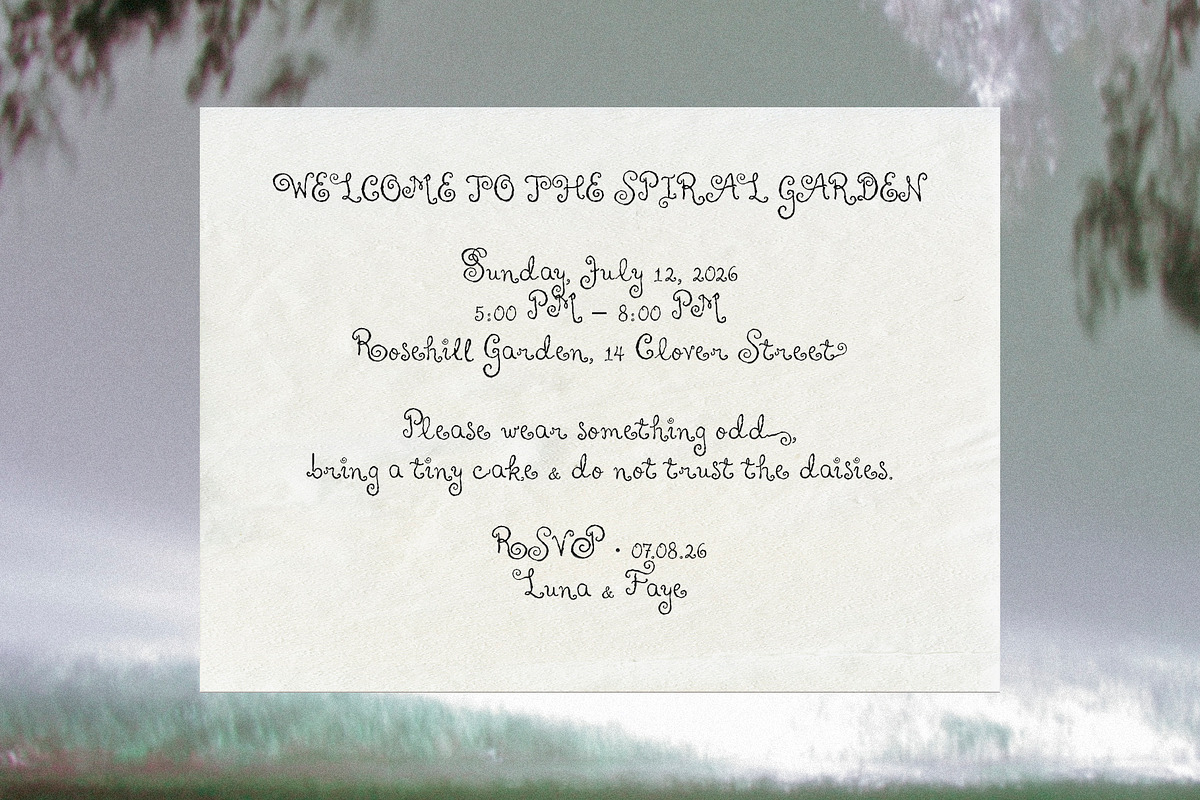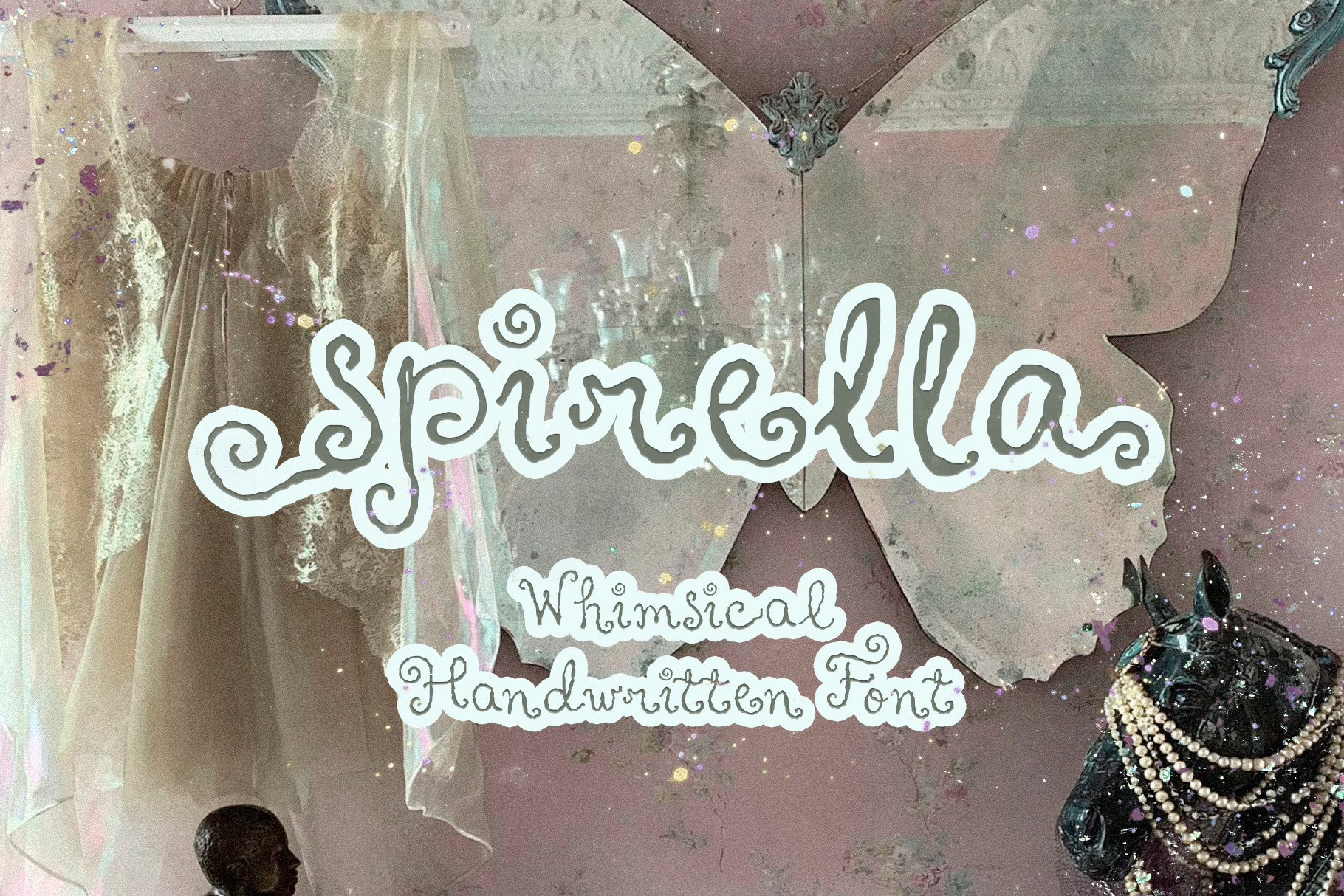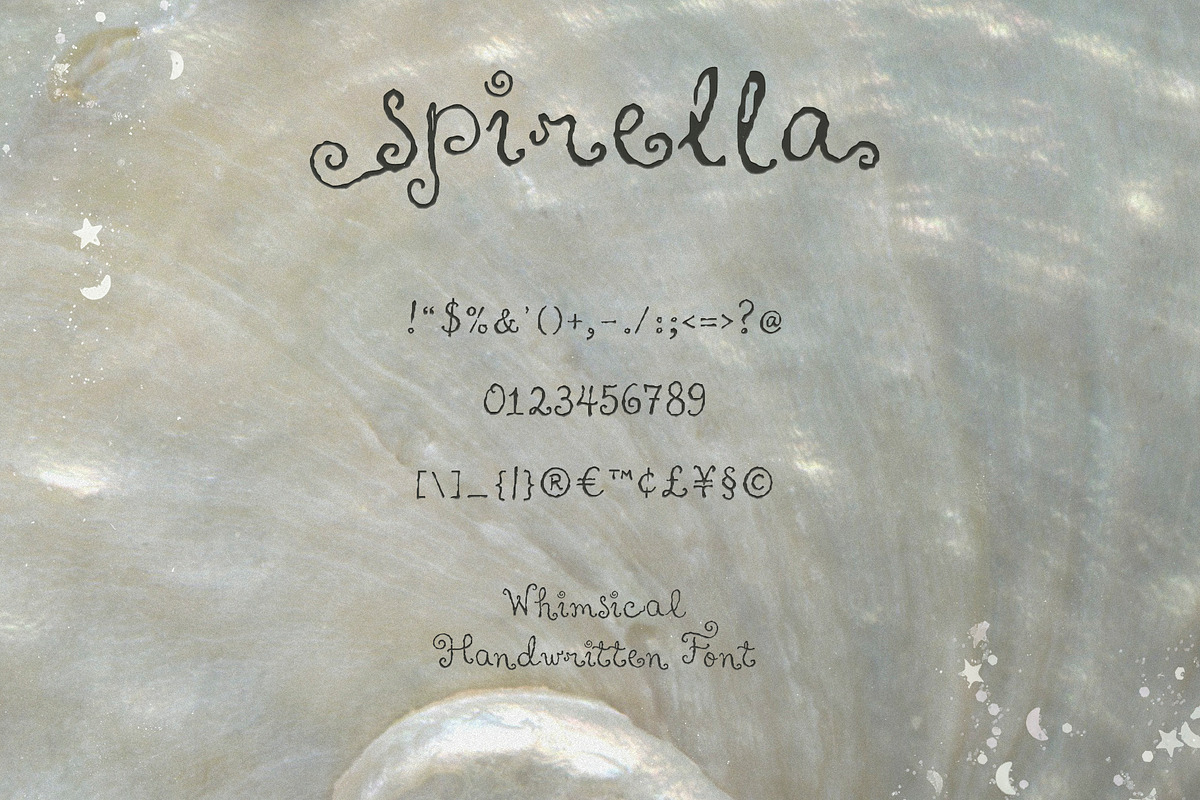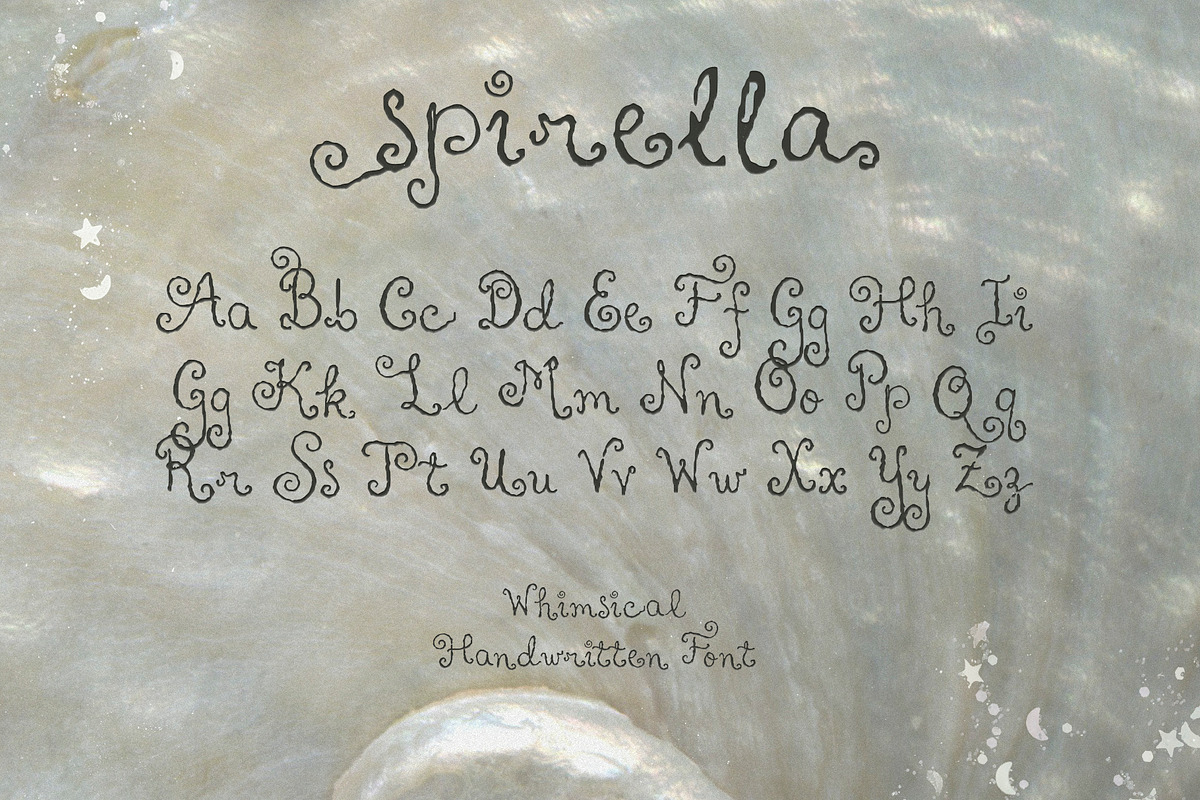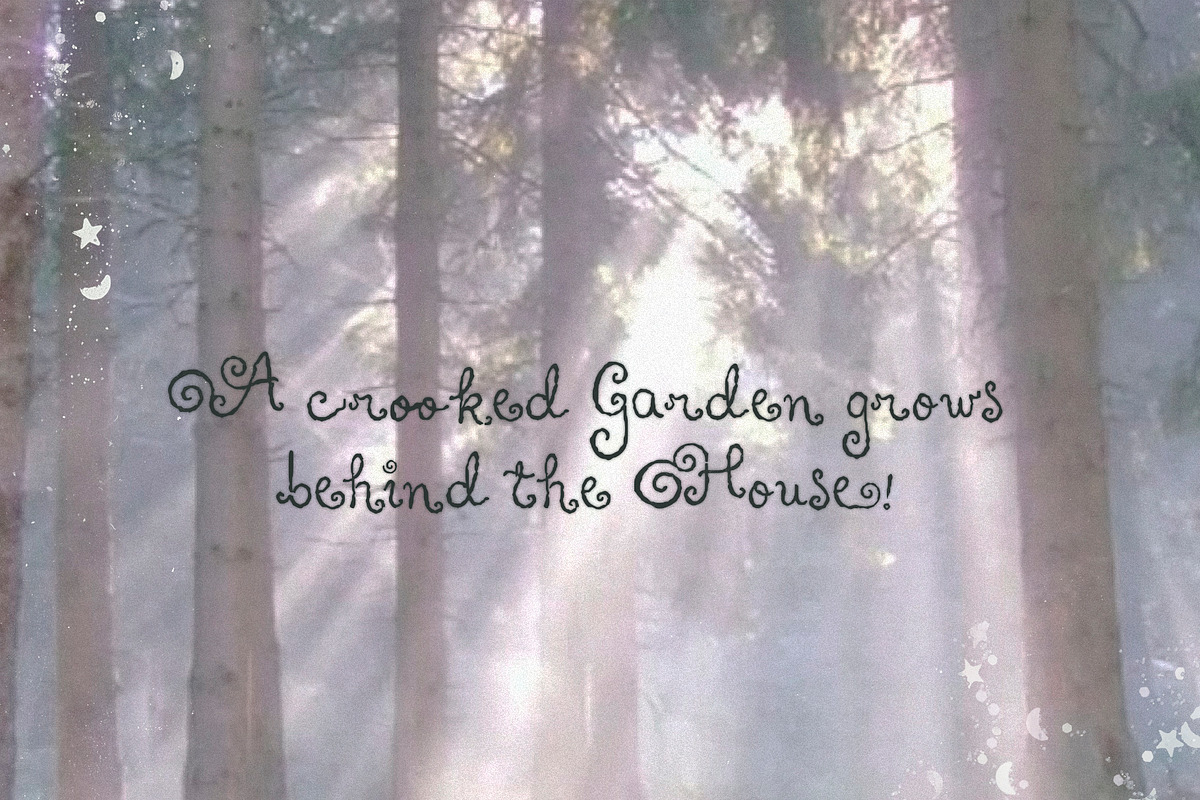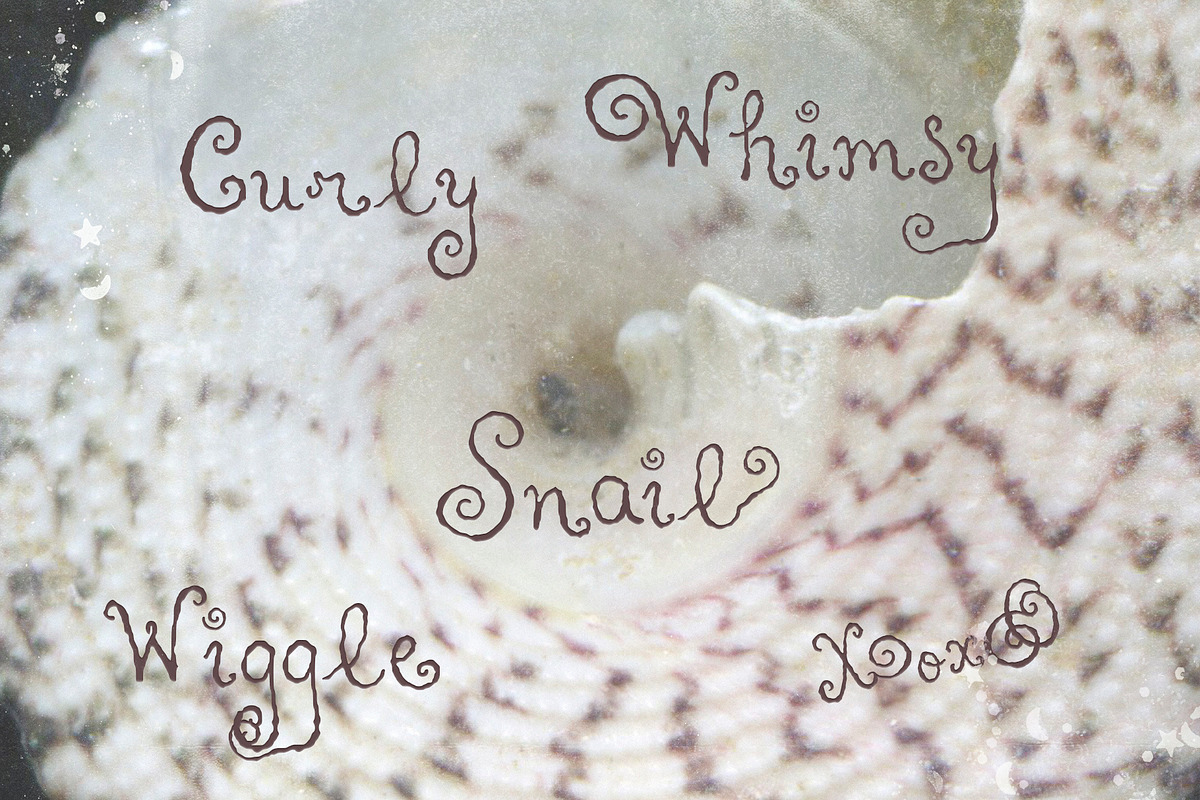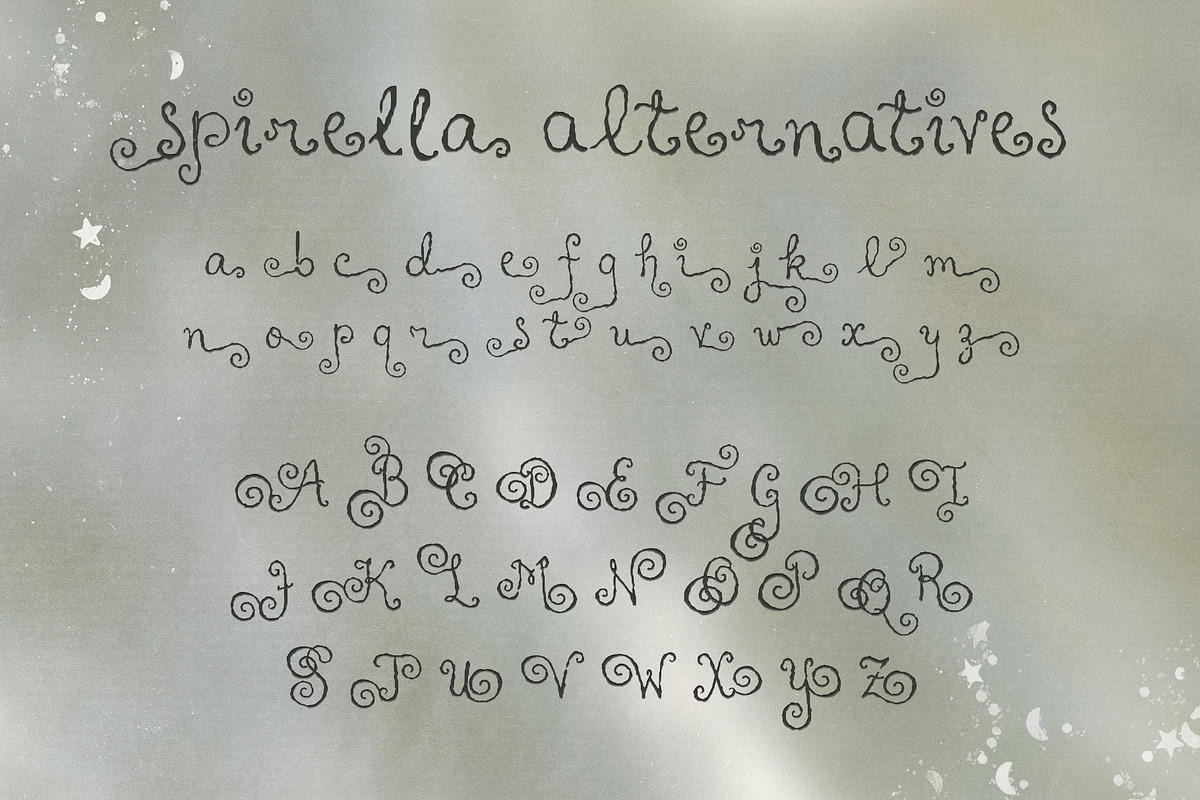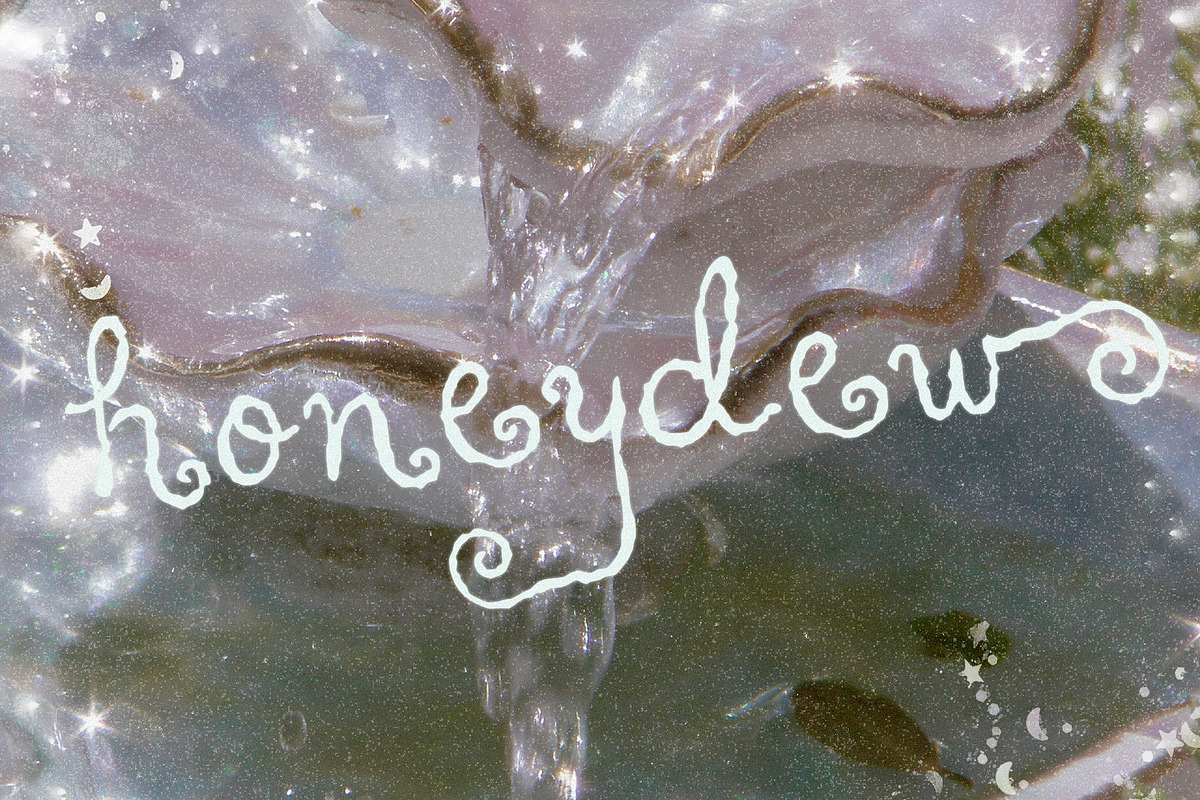
Spirella: Whimsical Handwritten Font
Spirella is a whimsical handwritten font full of curly ends, uneven shapes, tiny spirals, and playful handmade charm.
Uppercase letters
Lowercase letters
Symbols
Playful logos, garden party invitations, packaging, stickers, craft projects, greeting cards, labels, handmade branding, nursery prints, social media graphics, whimsical quotes, book covers, party stationery, and cute-but-weird design details.